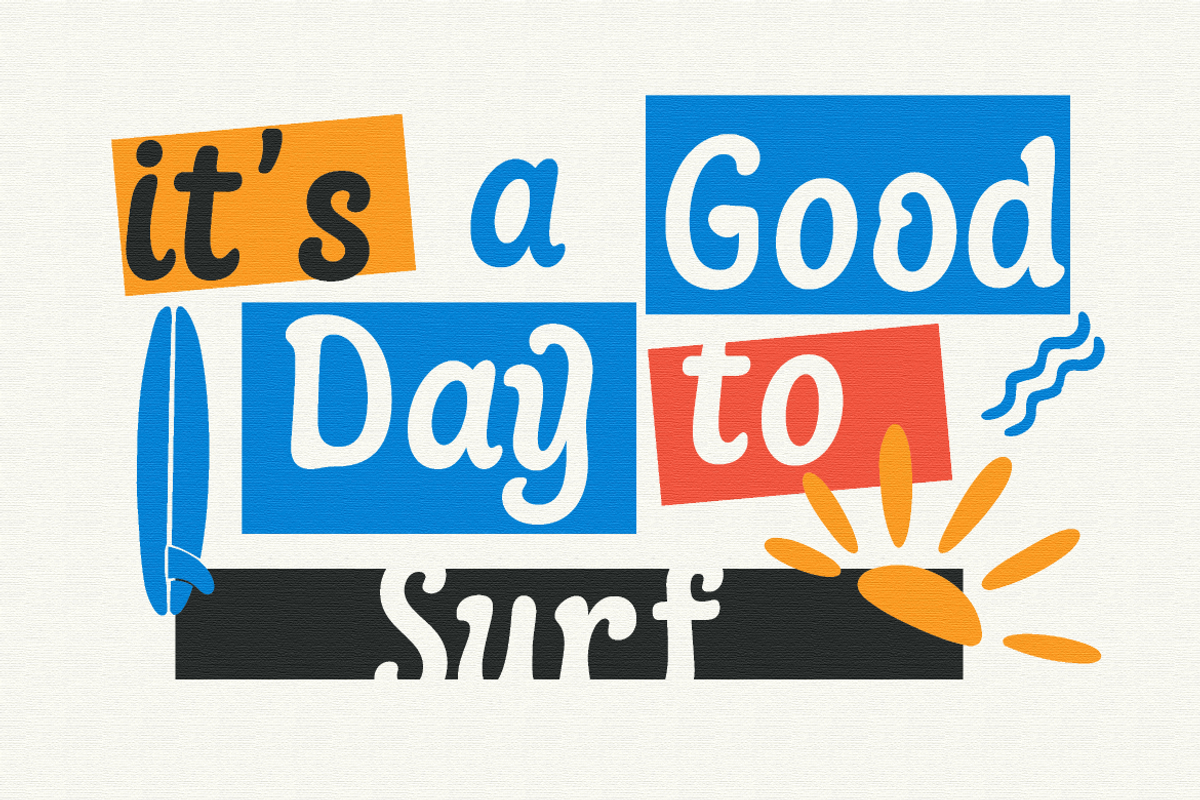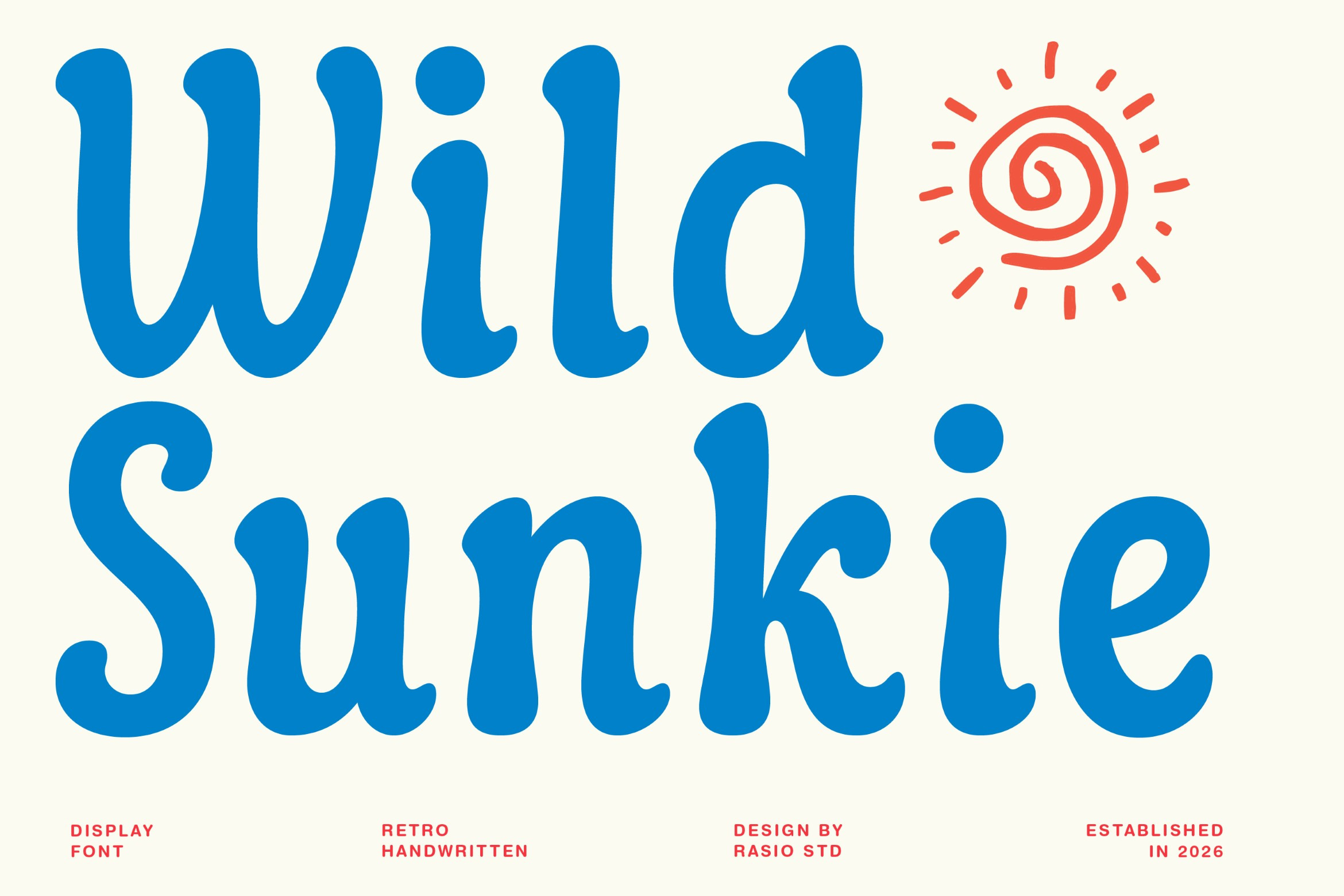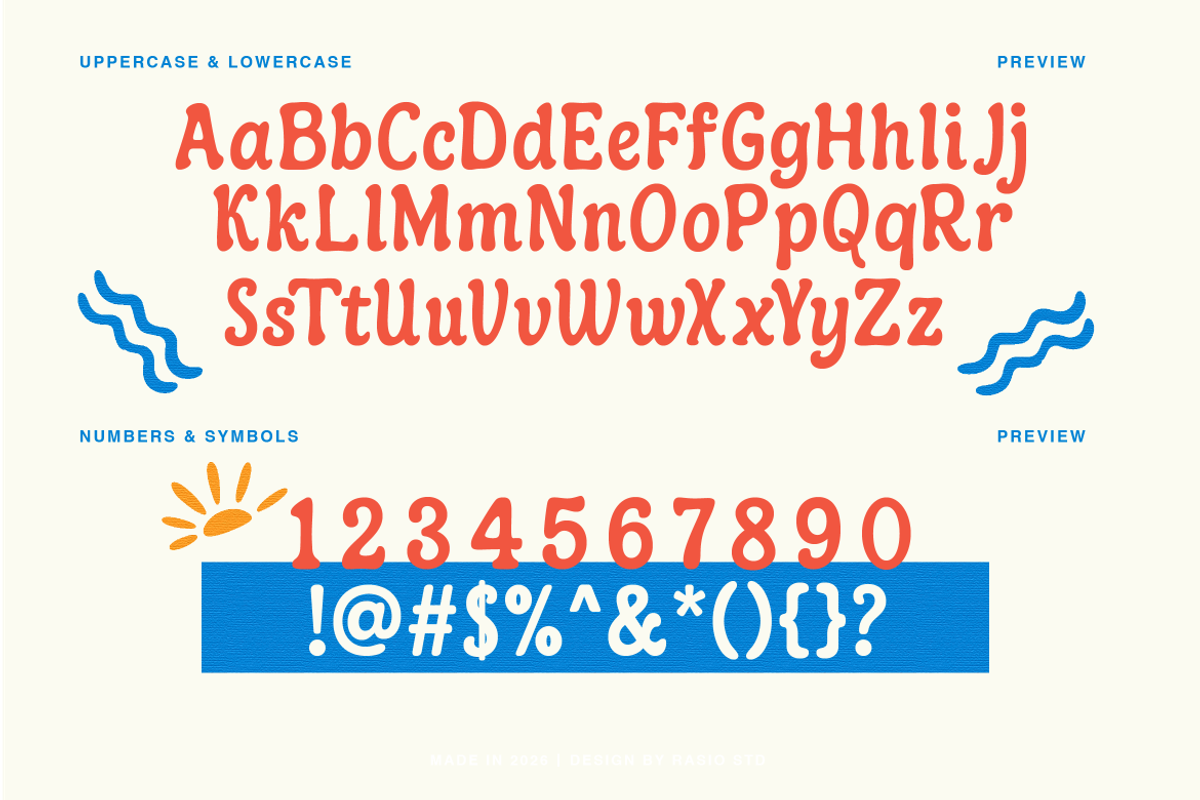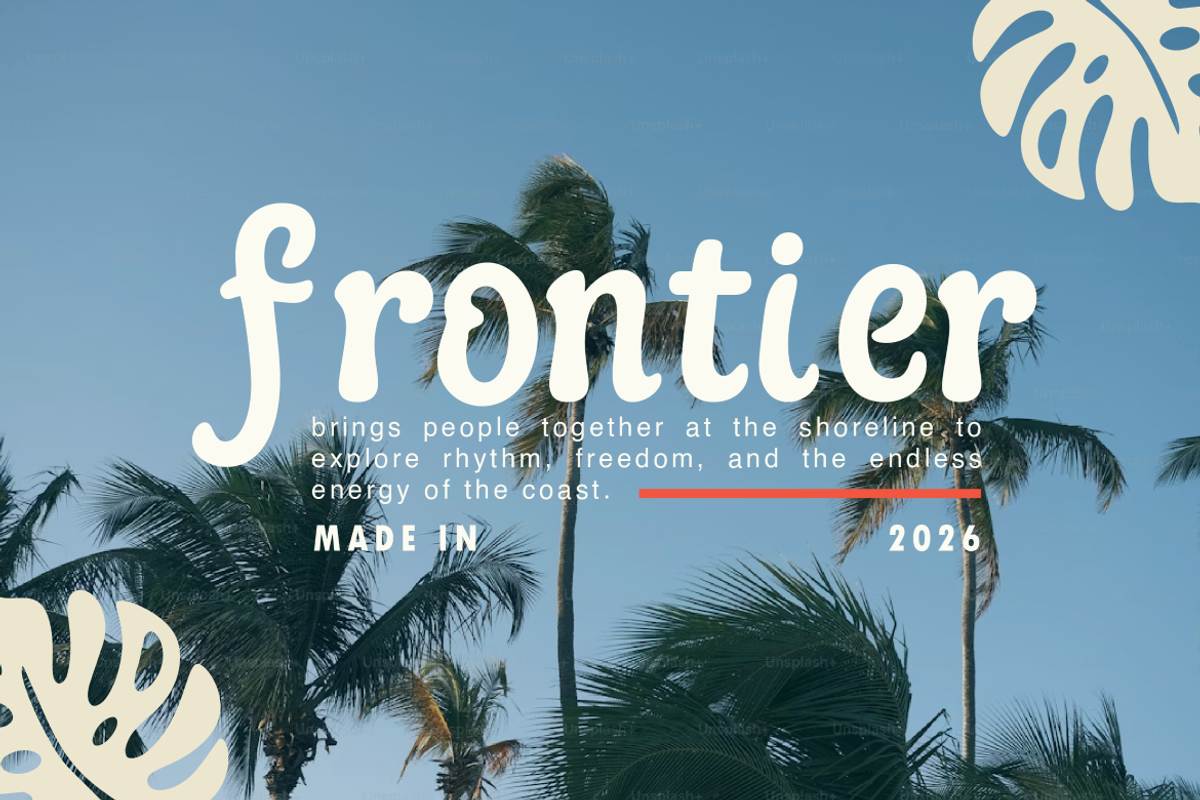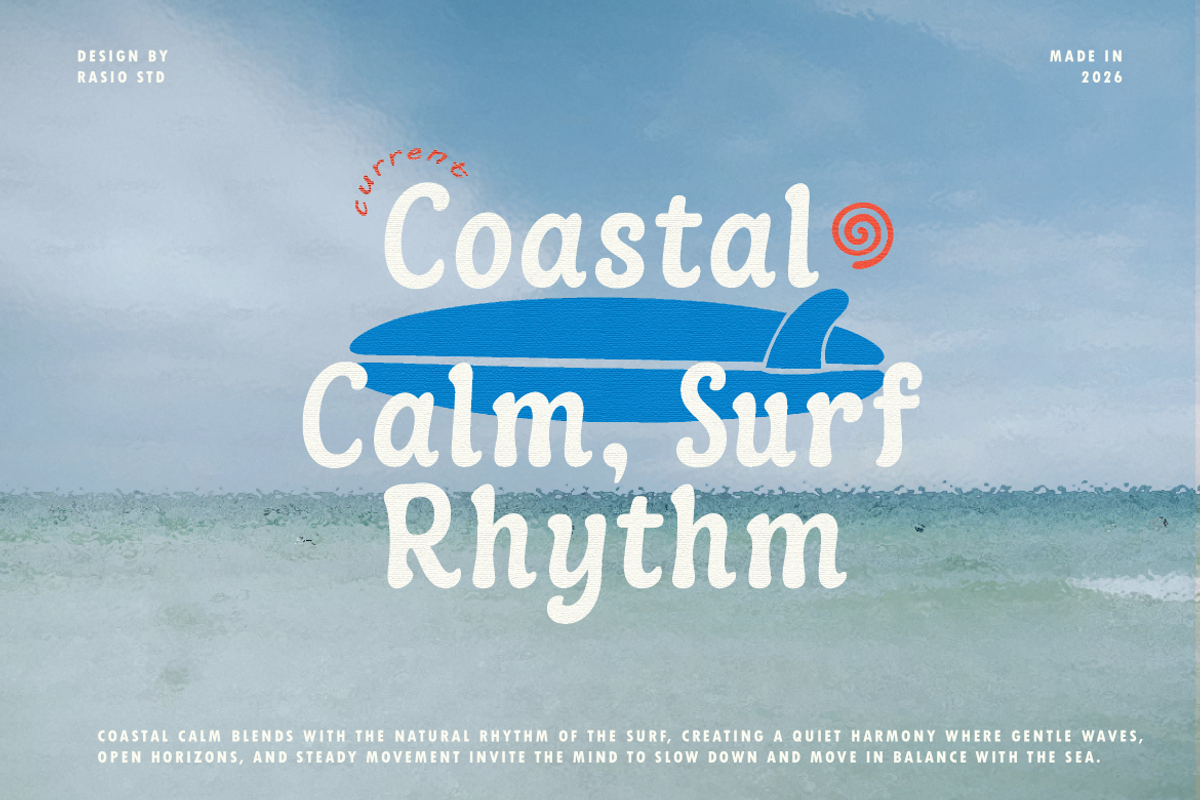
Wild Sunkie Retro Handwritten Font
Wild Sunkie is a playful retro handwritten display font featuring soft curves, chunky strokes, and a relaxed vintage personality. The letterforms are inspired by classic surf culture and retro signage, giving the typeface a warm and cheerful visual character. This font includes uppercase, lowercase, numbers, punctuation, and multilingual support, making it versatile for various creative projects. The rounded handwritten shapes create a friendly and expressive look while remaining clear and readable in display sizes.
This font is highly relevant for creative projects that need a cheerful retro personality. It works well for surf branding, summer posters, vintage-inspired packaging, playful logos, social media graphics, merchandise design, and bold display typography. The friendly handwritten style helps create warm, expressive visuals that instantly attract attention.
- Playful retro handwritten shapes with soft, flowing curves
- Rounded stroke endings that create a friendly and relaxed feel
- Chunky letterforms inspired by vintage surf and summer signage
- Smooth organic structure that keeps the typography lively and expressive
- Balanced spacing for clear and eye-catching display text
- Retro branding and logo designs with a fun vintage personality
- Eye-catching posters, headlines, and display typography
- Surf, beach, and summer themed graphics
- Product packaging and merchandise with playful retro style
- Social media graphics and creative promotional visuals